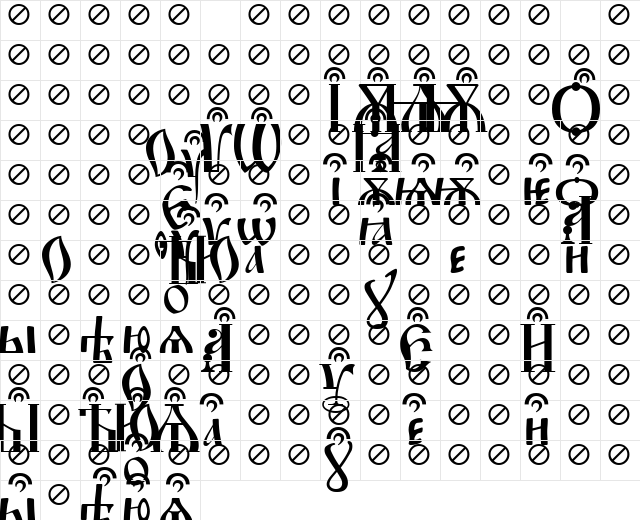
Irmologion BrthCircumflex Normal Free Font
Irmologion BrthCircumflex Normal
Design Context for Irmologion BrthCircumflex
Irmologion BrthCircumflex is a composed and adaptable typeface that performs quietly and consistently across a wide range of design contexts.